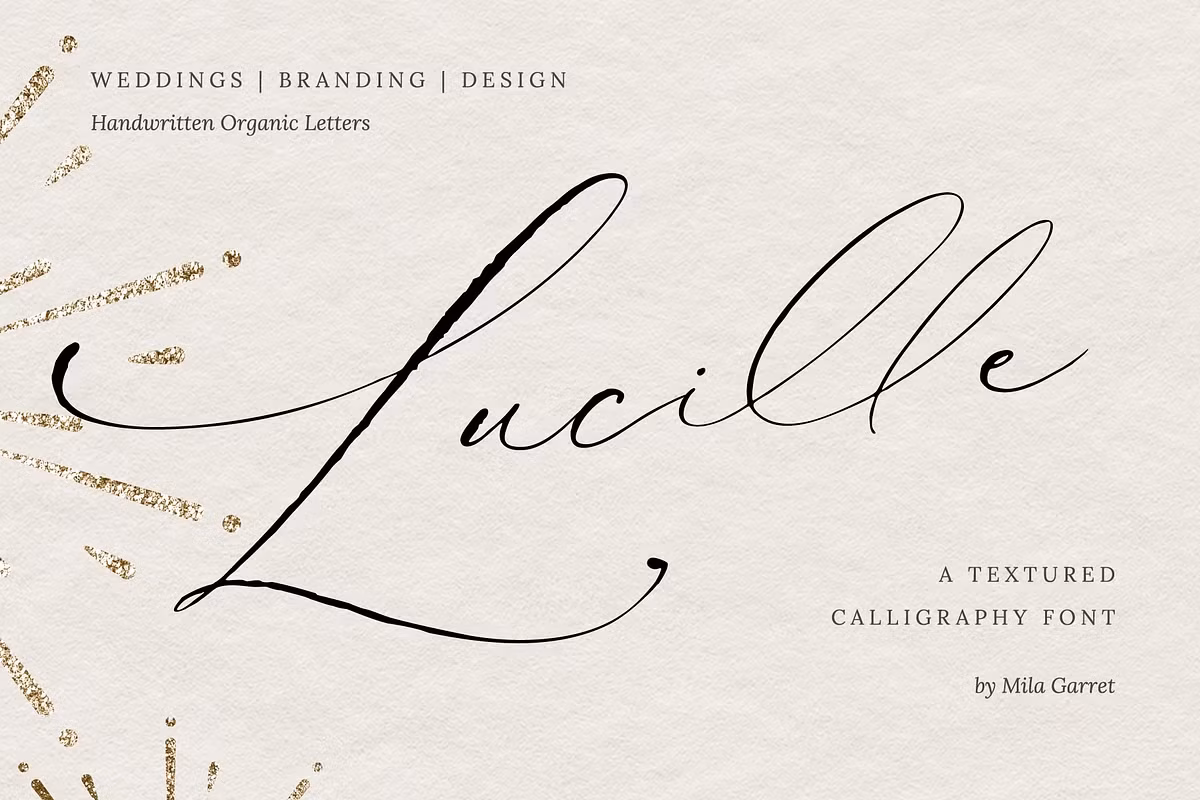
Lucille Wedding Calligraphy Font Free Download
Lucille Wedding Calligraphy Font Free Download is a delicate and elegant script typeface designed specifically for wedding invitations, greeting cards, and other romantic projects. With its flowing, graceful curves and sophisticated style, Lucille adds a personal, handwritten touch that perfectly captures the beauty and charm of love. Ideal for both digital and print designs, this font is perfect for high-end branding, stationery, and invitations.